In the world of visual designs, the font selection becomes one of the most crucial elements that can determine the character of an artwork. Fonts do not only function as the media to deliver texts but also to build atmospheres, brand identity, and create an appealing first impression. That’s why the use of a stylish display serif font in a design is growing in popularity, especially for modern designers.
Display serif fonts are known for their elegant appearance with artistic letter details that are full of character. The combination between classic serif shapes and modern touches makes this font type perfect for various design needs, including branding, logos, posters, packaging, editorials, and aesthetic social media content. Besides that, using a stylish display serif font can make a design look more luxurious, standout, and memorable.
So, if you are looking for a unique, classy, and charming display serif font, you can find some of the best options here. We provide you with 14 of the most stylish display serif font recommendations to make your design look more professional and appealing.
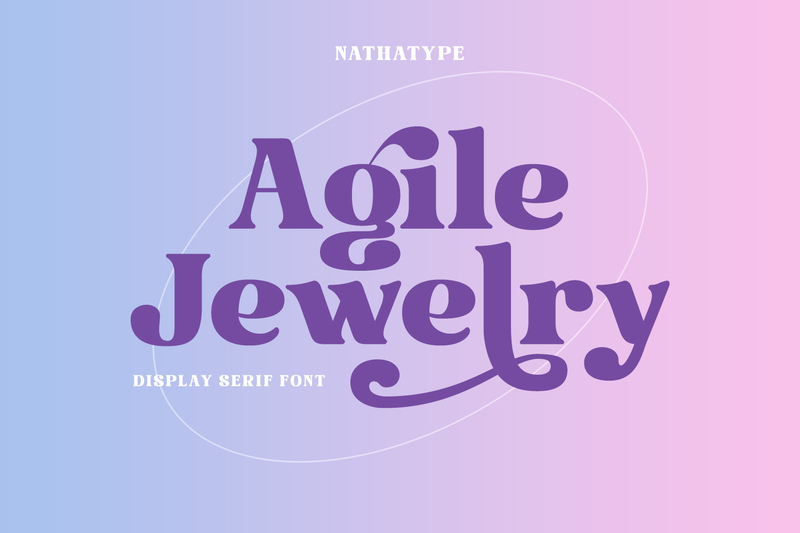
The first stylish display serif font in this list is Agile Jewelry. It is an elegant font that combines a luxurious and modern vibe harmoniously. The letterform features smooth serif details and neat letter structures, giving off a classy and premium impression.
Agile Jewelry has such a sophisticated character that can make any design look exclusive and refined. That’s why this font works perfectly for jewelry branding, women’s fashion, boutique logos, cosmetic packaging, and luxurious-themed editorial designs.
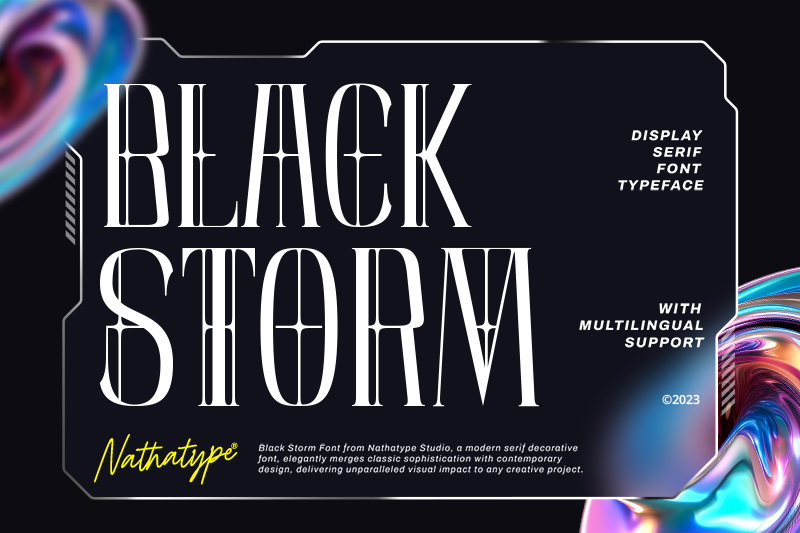
Next is Black Storm, a display serif font with a solid, elegant, yet artistic appearance. Its tall letterform features charming decorative details. The character is designed perfectly with the addition of distinctive lines and ornament, creating a sophisticated, exclusive, and appealing overall visual.
This font is ideal for various design needs, including fashion branding, premium logos, posters, packaging, editorials, and more. With the classic serif and contemporary look combination, Black Storm helps make a design more standout while remaining professional, memorable, and classy.
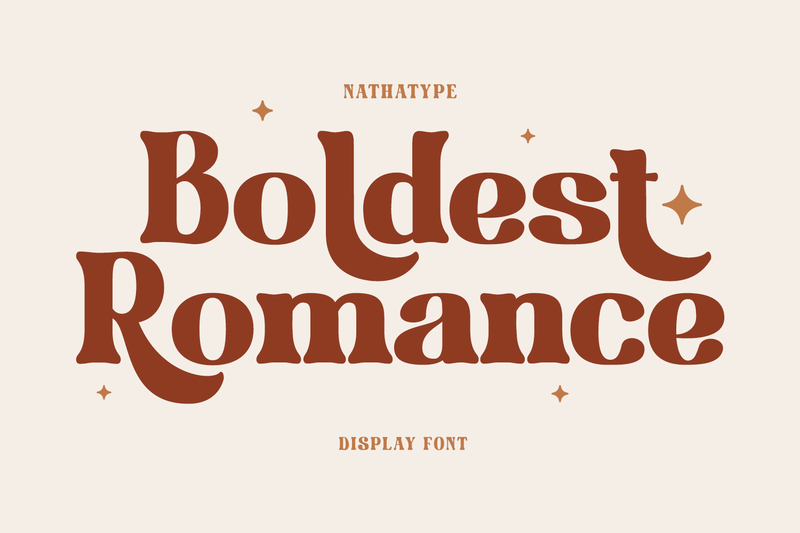
Boldest Romance is a stylish display serif font with bold letterforms. This font is designed to present a romantic, feminine, and elegant look in a single typography display. Its soft letter curves combined with artistic serif details create a sweet yet luxurious visual. This font is very ideal for wedding invitation designs, beauty product branding, fashion logos, and feminine luxury-themed packaging.
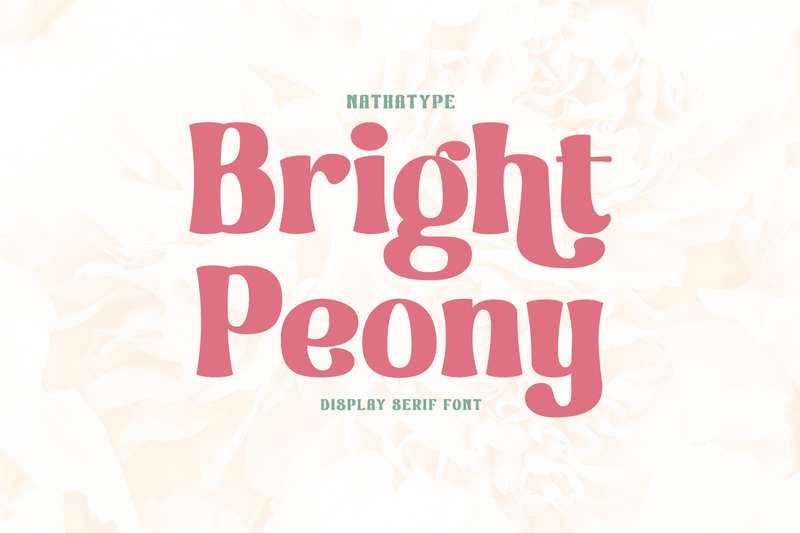
Bright Peony offers a feminine, modern, yet friendly look through its elegant and appealing letterform. This display serif font has a high contrast, clear serif details, and balanced letter structure, making it appear more stylish without losing readability. Overall, Bright Peony is a stylish display serif font ideal for skincare branding, aesthetic cafe design, social media content, and promotional templates that need an elegant and clean appearance.
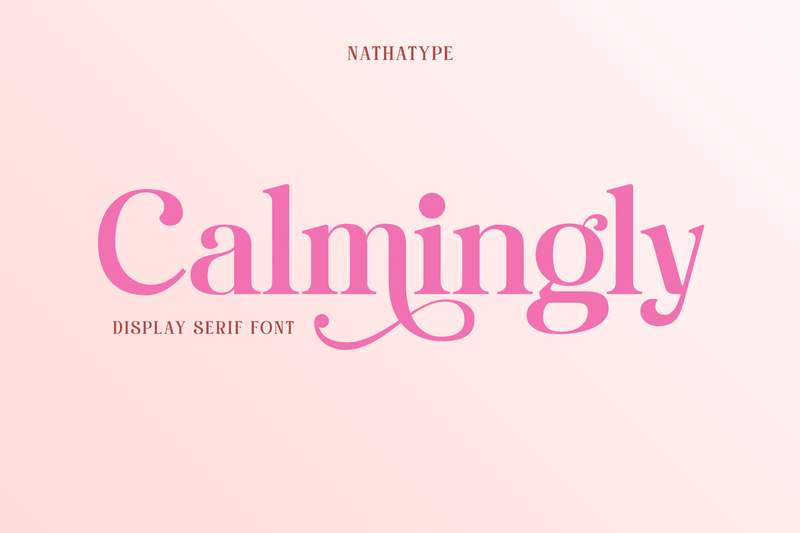
Calmingly is a stylish display serif font that brings an elegant, feminine, and aesthetic touch to enhance various modern designs. The bold serif letterforms, with their high proportions, create an elegant and modern appearance. The fine curve details on some characters add a unique touch that enhances the impression of elegance and character. This font is suitable for branding, beauty, fashion, packaging, and editorial with an enchanting, elegant appearance.
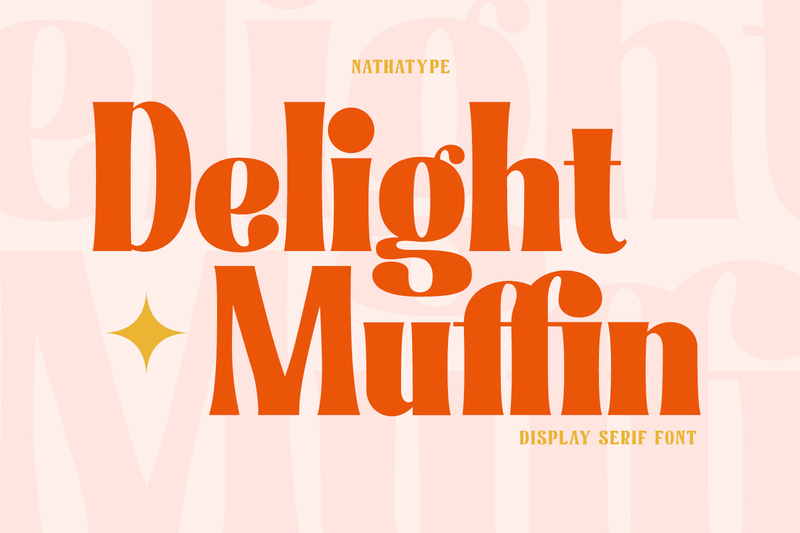
Inspired by a warm and friendly modern design style, Delight Muffin offers a display font featuring stylish, unique, and neatly designed curves. Each character is created with a balance that ensures the visual appearance is comfortable and appealing. Moreover, it combines thick and thin lines so distinctively, ensuring each letter feels lively and full of charm. Delight Muffin is ideal for branding, packaging, posters, and kid-targeted content with a fun, modern, and friendly theme.
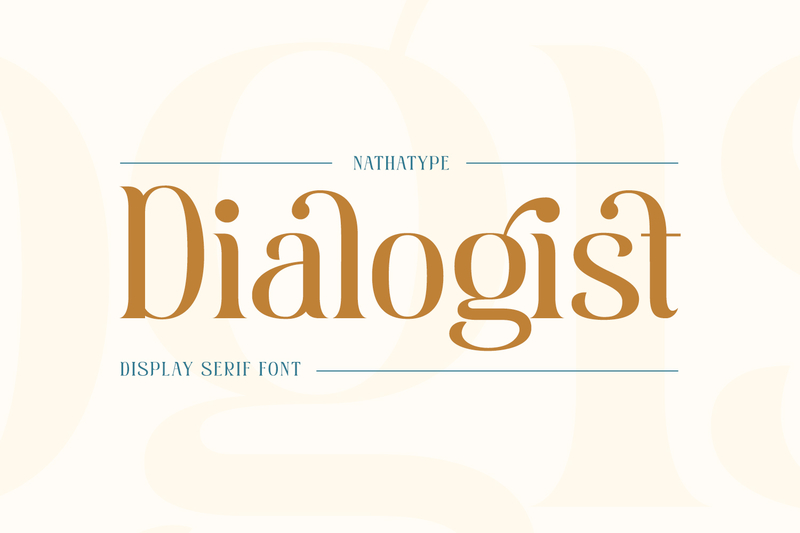
The next recommendation for a stylish display serif font is Dialogist, which presents an elegant character with a touch of smooth curves in every letter detail. Dialogist utilizes larger font sizes to create a more prominent and easily recognizable appearance. The presence of stylistic sets and ligatures allows for the creation of more artistic, harmonious, and visually appealing typographic compositions. This font is suitable for branding, editorial, posters, packaging, and premium projects that require a classic, elegant, and modern impression.
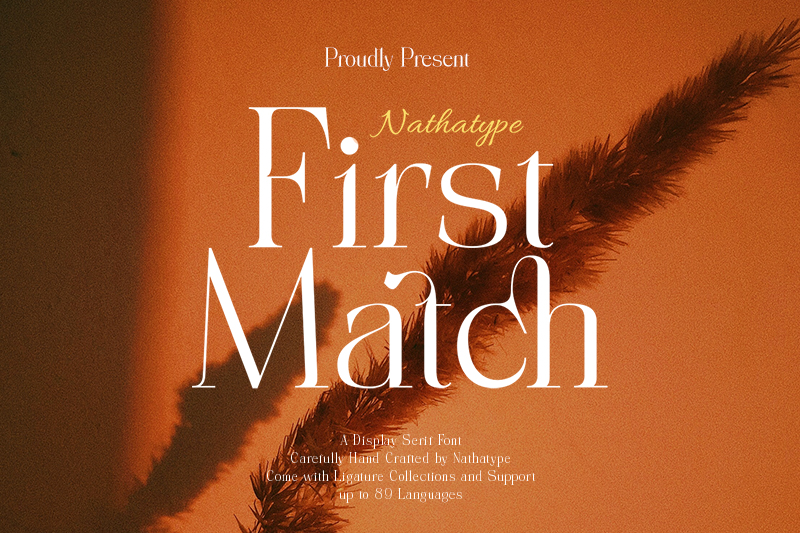
First March combines the beauty of classic serif with modern touches to create an elegant, classy, and appealing visual appearance. The letterform is clean with a balanced proportion, helping to create a professional, neat, and recognizable impression. The details of the letter edge are softly flowing, looking dynamic yet artistic enough to appeal to the audience at the same time. As a stylish display serif font, First March is perfect for branding, editorial, logos, packaging, and premium designs seeking a sophisticated and modern vibe.
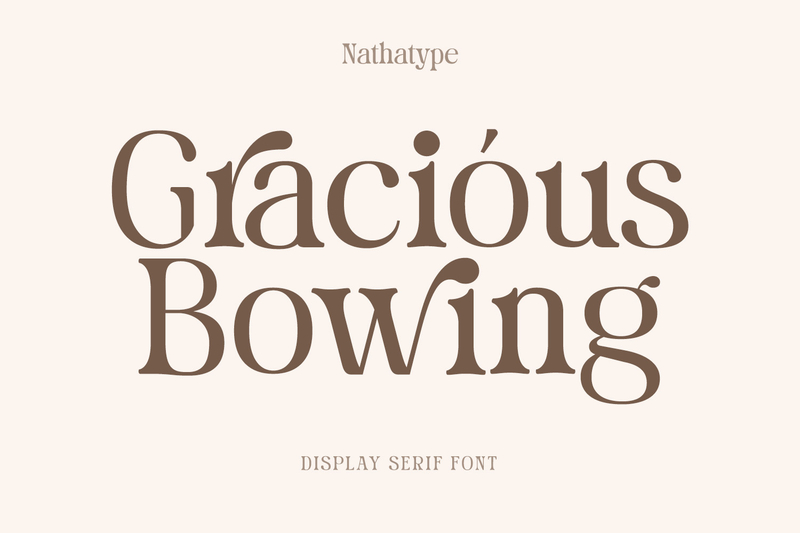
Link of font demo: Click Here
Gracious Bowing presents a display serif font that has a classic beauty and modern, sophisticated touch. This font has smooth curve details, flowy decorative terminals, and organic serif shapes that create a luxurious and strongly characterized appearance. Additionally, it provides stylistic sets and ligatures that make it possible for a more artistic and visually appealing typography exploration. As a result, Gracious Bowing works perfectly for luxurious branding, logos, packaging, and premium, exclusive designs.
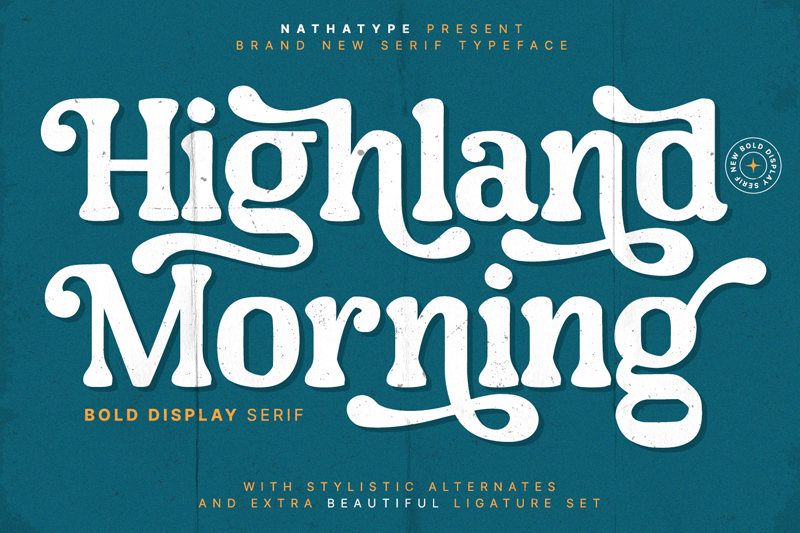
Link of font demo: Click Here
Highland Morning features bold serif characters with a textured touch resembling ink strokes, giving it a unique and charming retro vibe. This font features small decorative hook details, curved letter ends, and swash elements that enhance its artistic and expressive impression. Those unique characters make Highland Morning the perfect choice as a stylish display serif font suitable for branding, packaging, posters, logos, and vintage designs. This font is equipped with stylistic sets and ligatures to help create something more creative and characterful.
Link of font demo: Click Here
Coming with artistic uppercase letterforms, Lavire combines the classic serif beauty with a modern touch that looks unique and classy. This font has decorative line details and creative accents in each character, creating a luxurious and strong character. The artistic touch on each letter creates a dynamic impression that can enhance visual appeal and design identity. This font is ideal for branding fashion, jewelry, beauty products, and even premium designs that require a more sophisticated visual appearance.
Link of font demo: Click Here
Just like its name, Magnific presents a display serif font that is luxurious thanks to its strong, elegant, and friendly character combination. The strong and balanced letter character helps create a clear, neat, and professional visual at the same time. As a stylish display serif font, Magnific is ideal for posters, logos, branding, headings, and merchandise designs. Furthermore, with its solid serif details and strong contrast, this font can add a classy touch to any design.
Link of font demo: Click Here
Monaly presents a serif font with an uppercase format that stands out with its large and thick letterforms. Designed to create a strong and appealing visual, Monaly’s tall, solid letter edges are elegant, luxurious, and full of confidence.
The combination of classic elements and modern touches creates a sense of luxury, fashion, and editorial style. The main feature of this stylish display serif font is the decorative lines within the letters (inline effect), which add an artistic touch without looking excessive.
Link of font demo: Click Here
The last stylish display serif font on this list is Resting. It combines classic elegance with a modern, refined touch, creating a look that feels both timeless and contemporary. Its bold letterforms and high contrast give the font a strong visual presence while maintaining a sophisticated and polished appearance. Whether used for modern branding, luxury and minimalist designs, editorial posters, or social media templates, Resting brings a professional, elegant, and eye-catching character to any project.
Using a stylish display serif font in a design is an effective way to make it appear more elegant and modern and have a strong visual character. Each font in this recommendation is unique, from luxurious and feminine to classy and modern. You can choose the one that fits best with your design needs.
From the luxurious elegance of Agile Jewelry to the clean and modern look of Resting, these stylish display serif font recommendations can elevate your designs and help them stand out. They add aesthetic value, create a more memorable visual impression, and enhance the overall quality of your work. Choose the font that best fits your project and create stunning, professional visuals that effectively strengthen your brand identity.